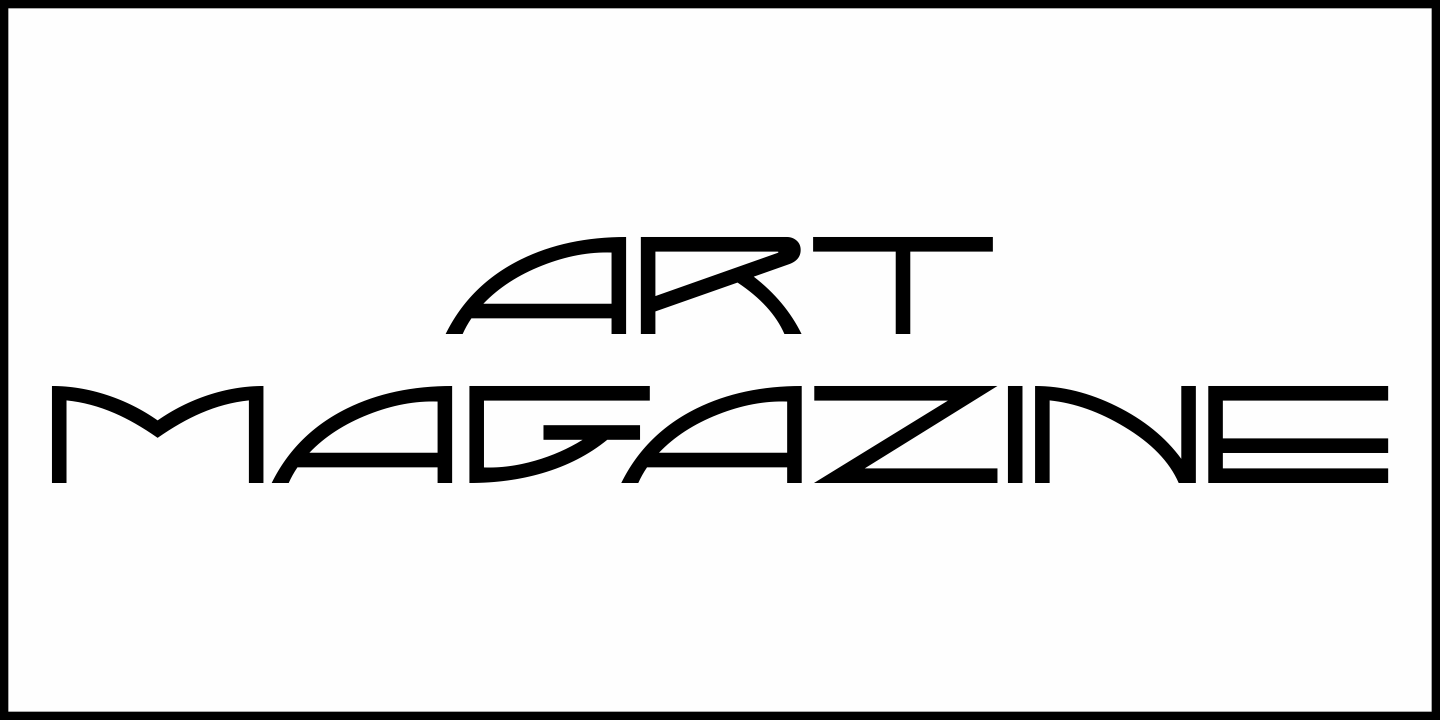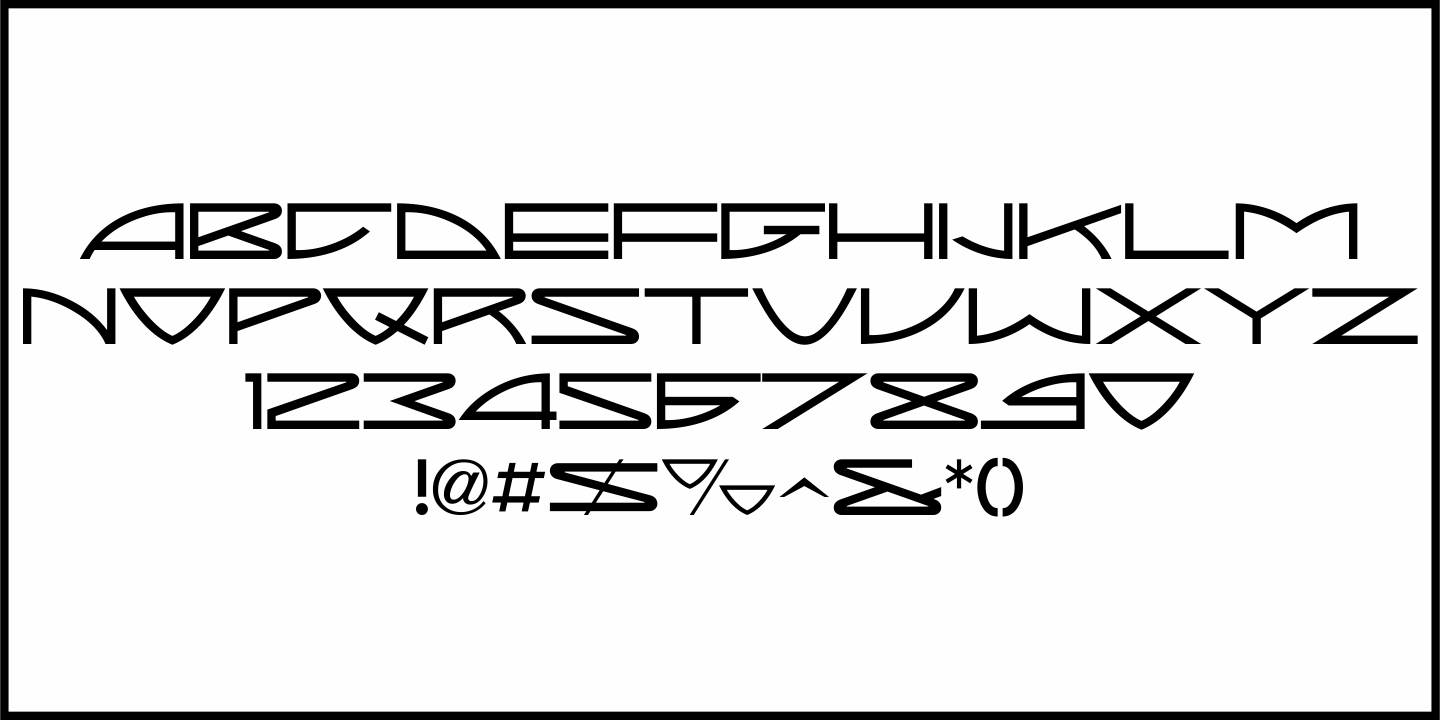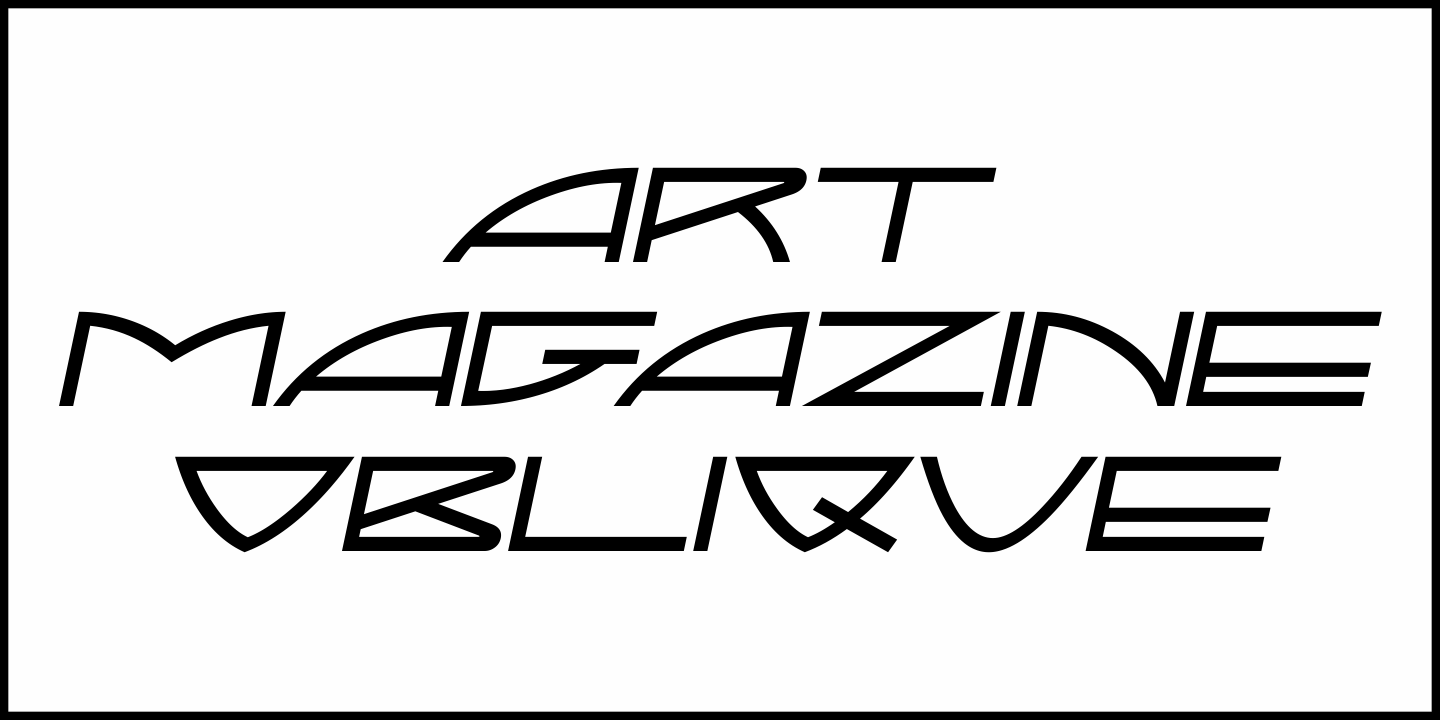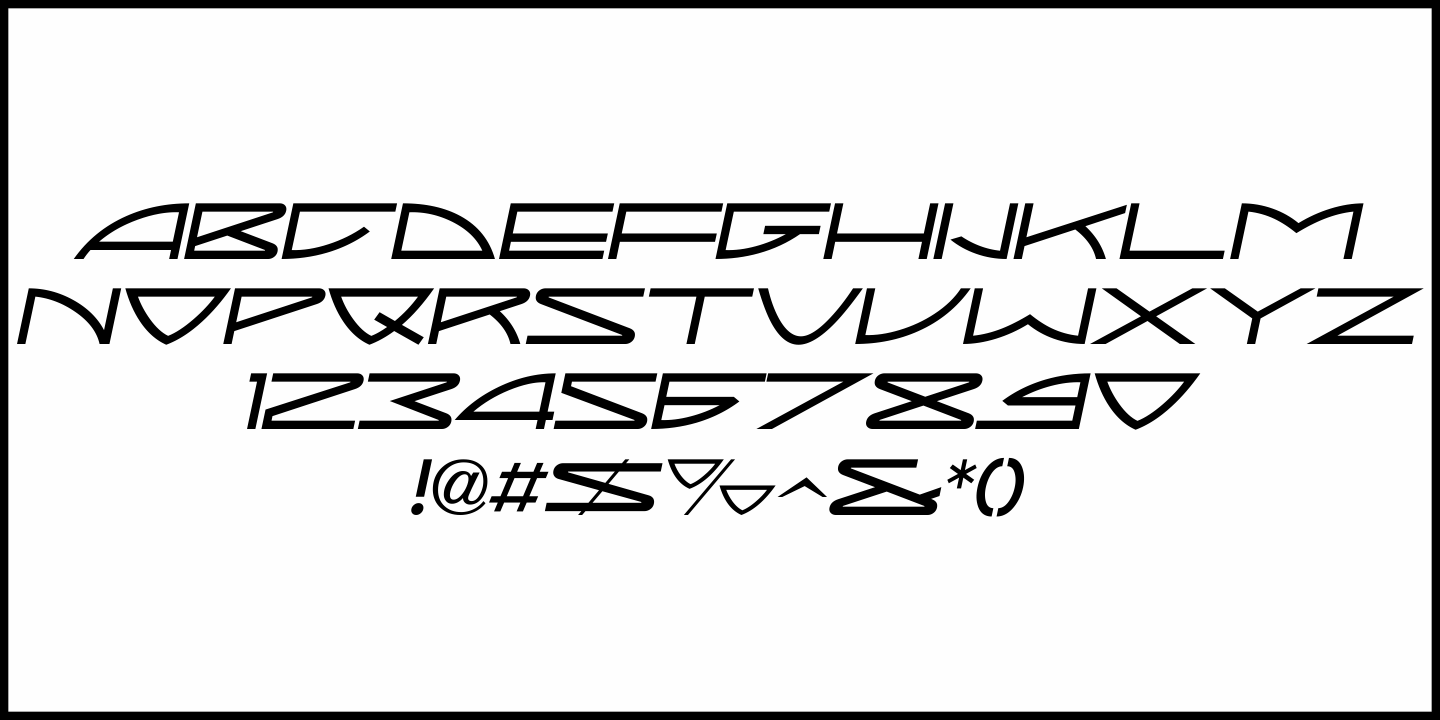
Art Magazine
A 1920 art magazine from Great Britain entitled 'Pan” had its three letter name hand lettered on the cover in a style that had elements of Art Nouveau, Art Deco and what would eventually be called Techno in the 1980s.
This inspired the typeface Art Magazine JNL, which is available in both regular and oblique versions.
Art Magazine JNL Regular by Jeff Levine Fonts